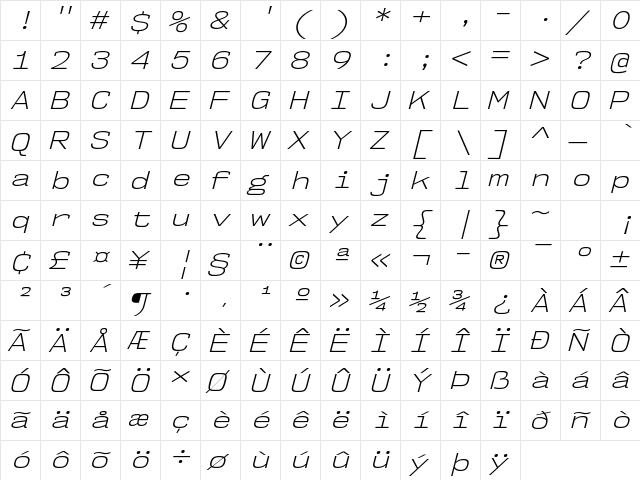
NK57 Monospace Semi-Expanded Light Italic Font Preview
Design Context for NK57 Monospace Typeface
NK57 Monospace uses fixed-width spacing throughout, giving it the structured, systematic character associated with coding environments and technical documentation. The dynamic lean of this cut emphasises speed and emphasis in any layout. Its slender proportions lend an understated elegance to any composition.